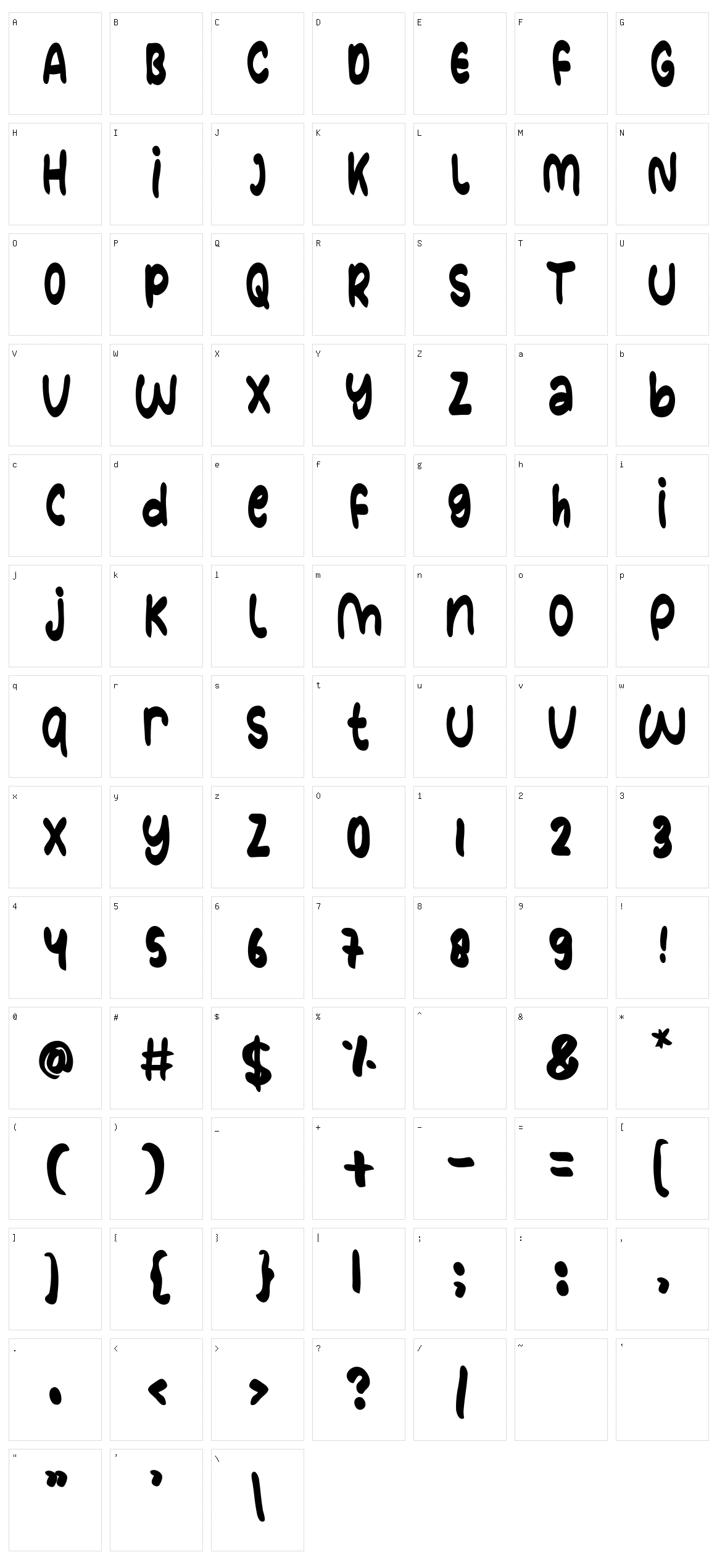
The free font With Someone is carefully designed by share font, showcasing a thoughtful balance of creativity and usability and falls under the Script font style. When you download the ZIP file, it contains only 33.23 KB of font files, making it lightweight and quick to download. Please review the license details below to understand permitted usage and distribution rights. If license information is not available, we recommend using this font for personal projects only or contacting the author directly for commercial usage permissions.